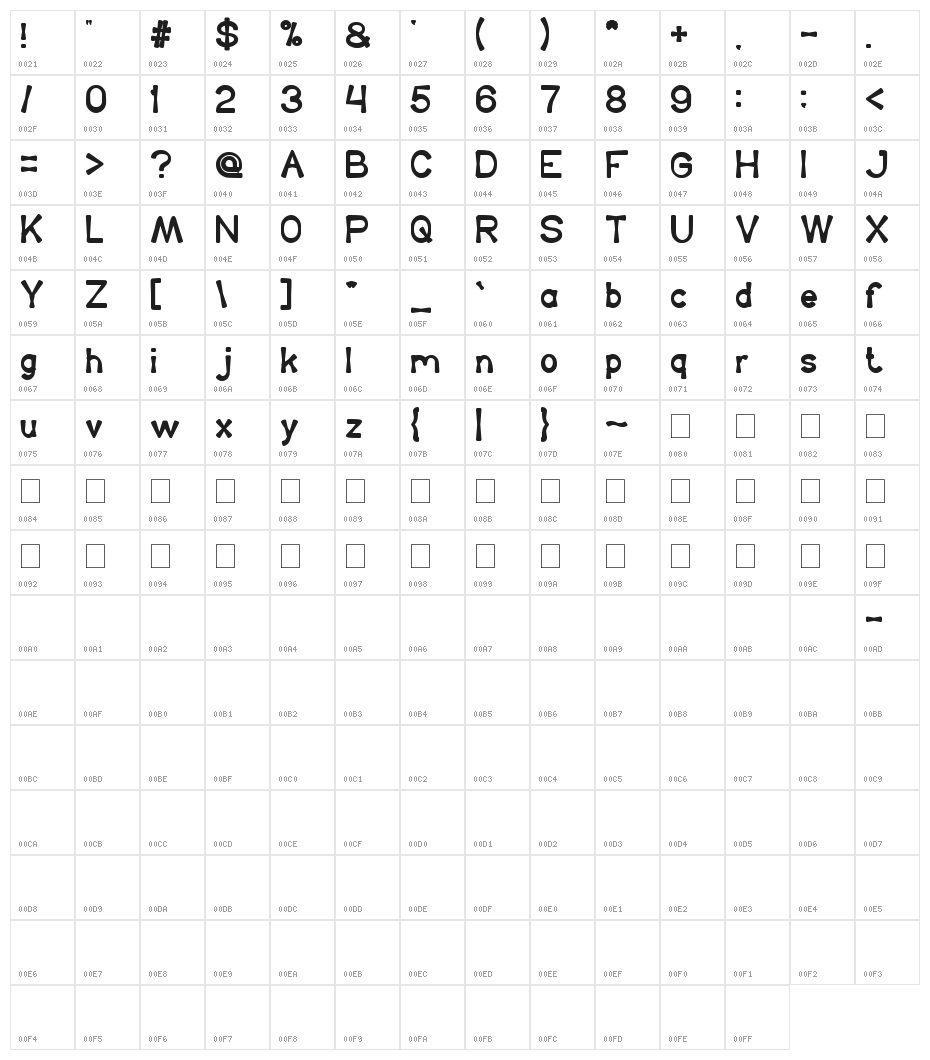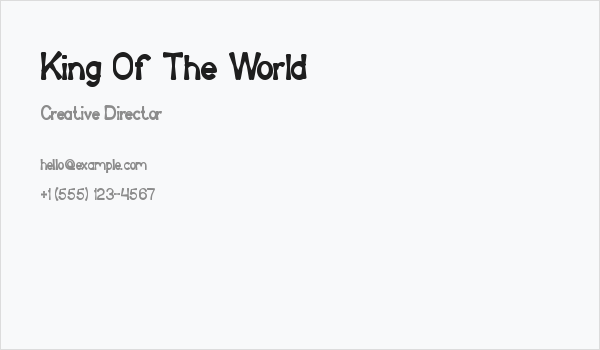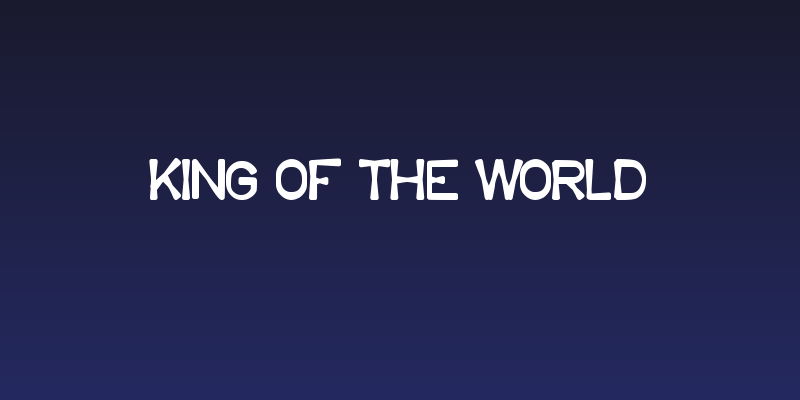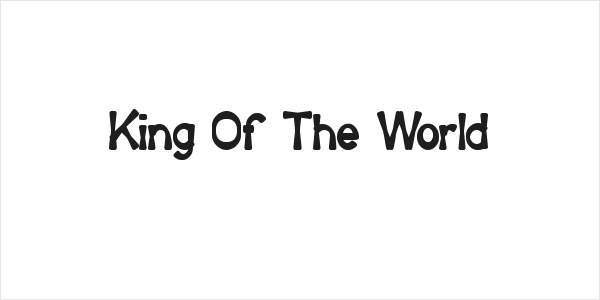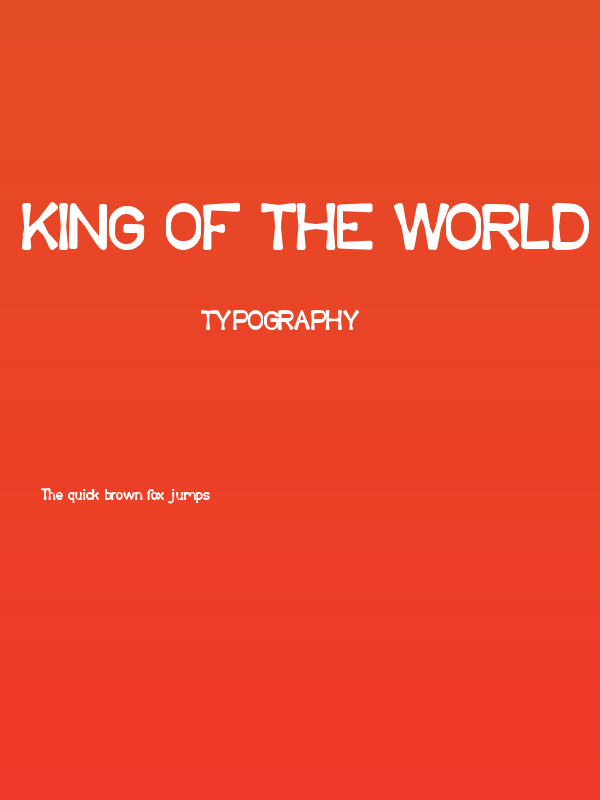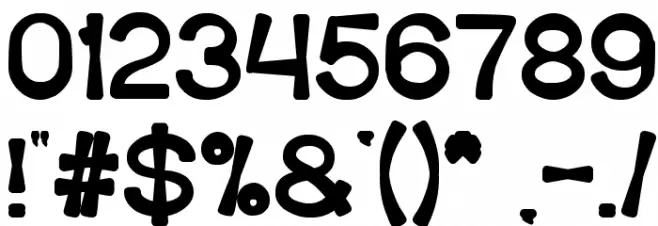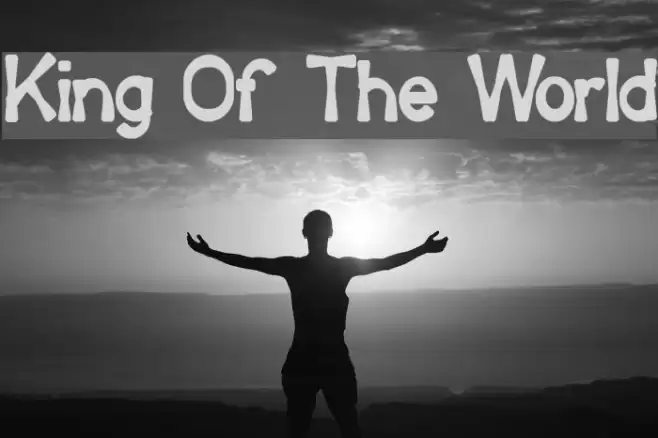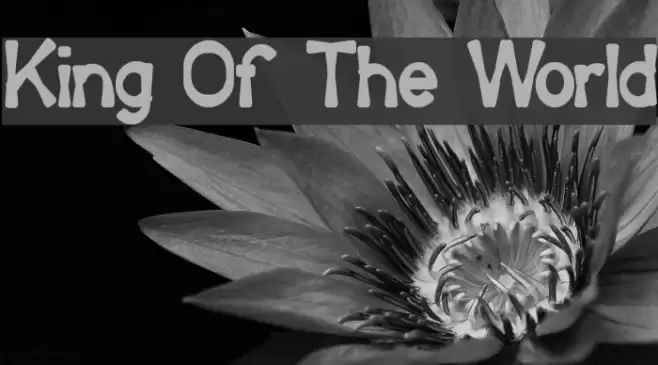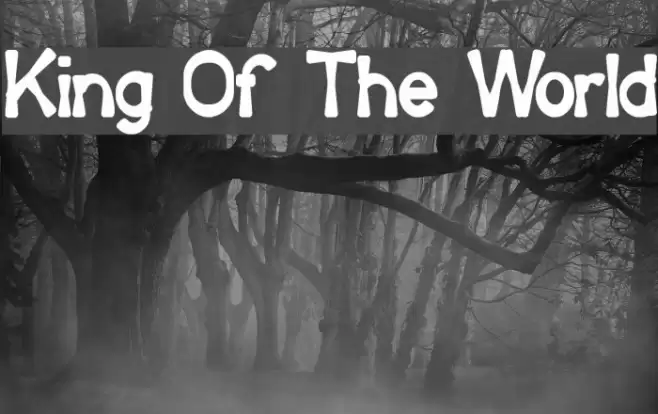
King Of The World Font
This font features a playful and bold design with a hand-drawn aesthetic. The characters are thick and rounded, giving them a friendly and approachable appearance. The uppercase and lowercase letters maintain a consistent style, with slightly irregular shapes that add to the whimsical feel. The numbers and special characters are equally bold, ensuring readability while maintaining the overall playful theme. The font's unique style makes it stand out, perfect for projects that require a touch of fun and creativity.
| Proposed Projects | Ideal for children's books, playful branding, posters, and creative invitations. |